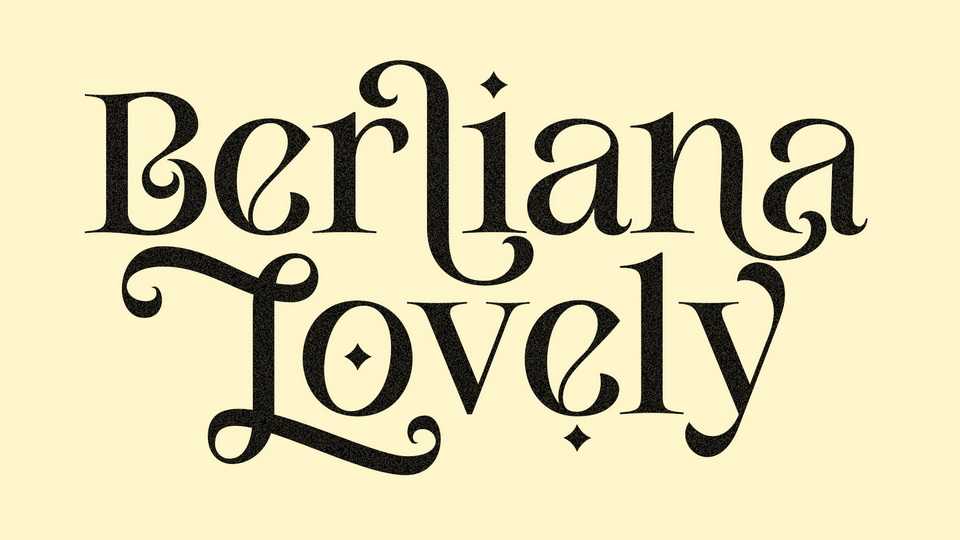
Download Berliana Lovely font, a stylish vintage serif typeface. Berliana Lovely is perfect for branding projects, logo design, clothing branding, product packaging, magazine headers, or simply as a stylish text overlay to any background image.
Designer: Dean Nugraha